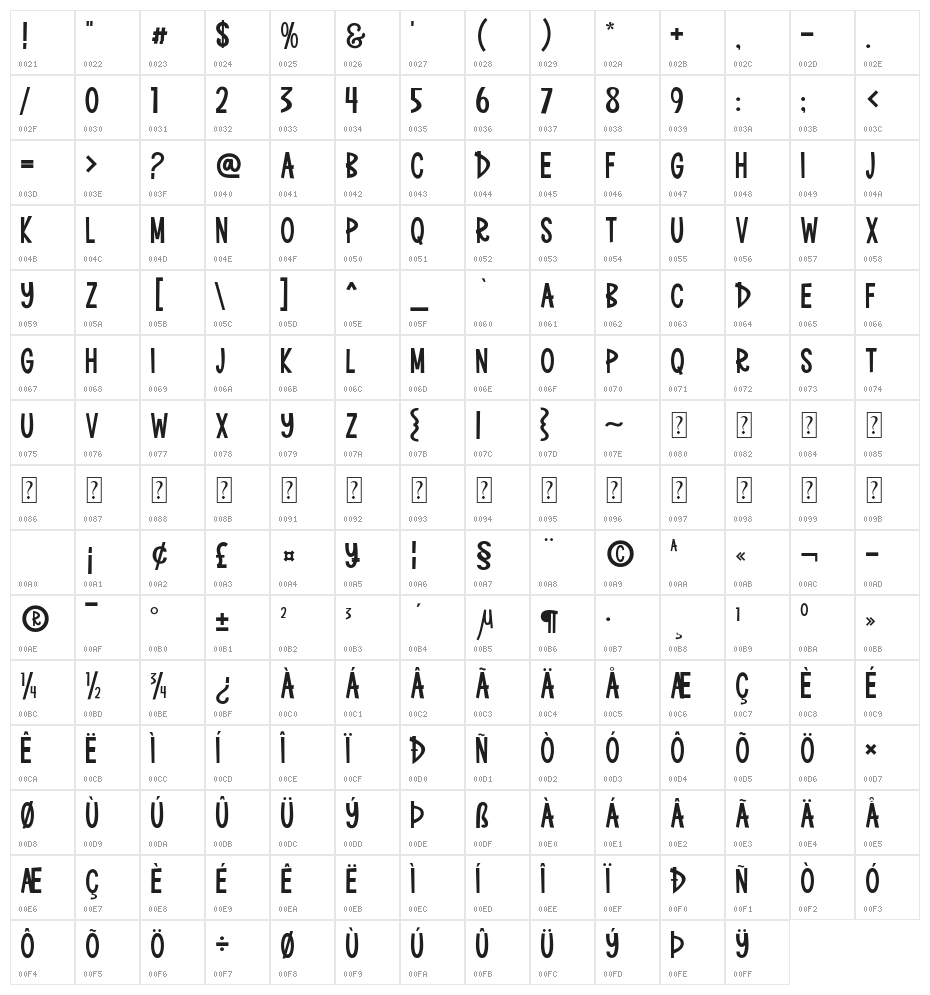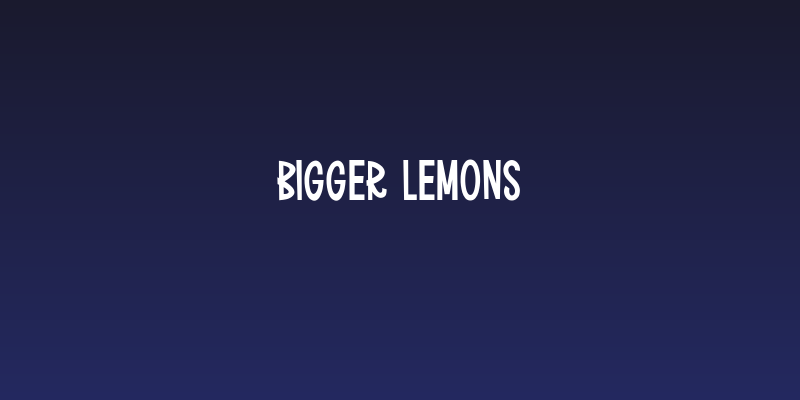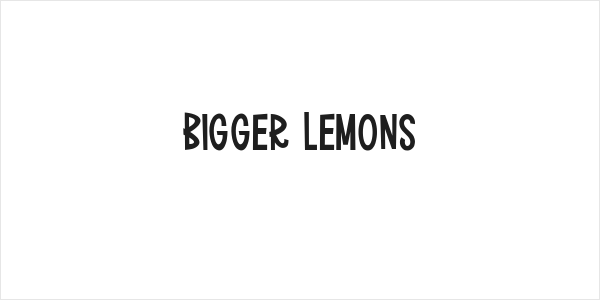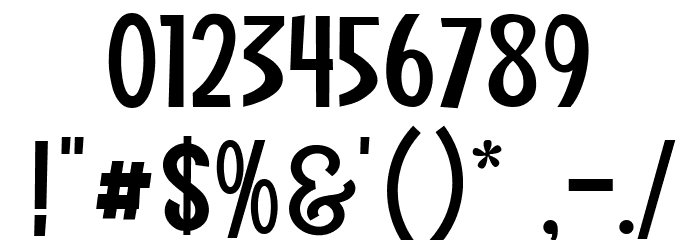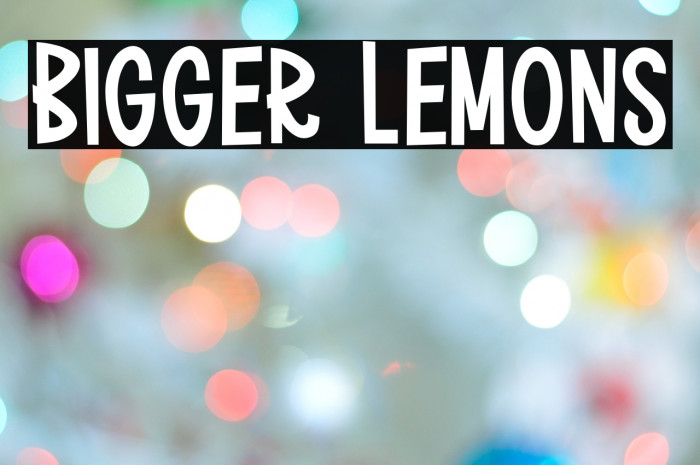
Bigger Lemons Font
Bigger Lemons Description
This font features a playful and bold style with exaggerated curves and a slightly irregular baseline, giving it a whimsical and energetic appearance. The uppercase letters are particularly striking, with a mix of sharp angles and rounded edges that create a dynamic visual rhythm. The lowercase letters maintain this playful aesthetic, ensuring consistency throughout the typeface. The numbers and special characters are equally bold and expressive, making them stand out in any design. This font is ideal for projects that require a fun and lively touch, such as children's books, posters, or branding for creative businesses.
| Overall Style | Playful, Energetic, Whimsical |
| Proposed Projects | Ideal for children's books, playful posters, creative branding, and eye-catching headlines. |